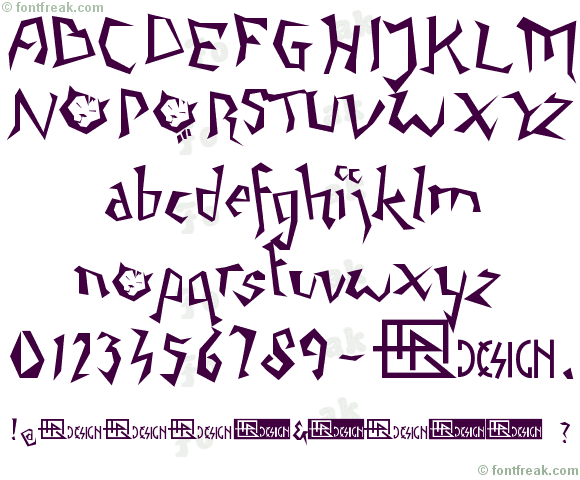
Napping Cat
The Napping Cat font by Roland Huse is a distinctive display typeface that captures the whimsical essence of feline leisure. With its playful, slightly irregular letterforms, this font falls into the decorative category, making it perfect for conveying a sense of fun and creativity. The strokes are uneven, giving the characters a hand-drawn appearance that is both inviting and charming. The overall weight is medium, with a moderate contrast that ensures legibility while maintaining a unique character.
This font's visual characteristics include quirky curves and sharp angles, which lend it an artistic flair. The spacing between letters is balanced, allowing for easy reading while enhancing its playful vibe. The Napping Cat font features decorative elements that evoke a sense of spontaneity, making it ideal for projects that require a lighthearted touch.
Best suited for creative applications, the Napping Cat font is perfect for children's book covers, playful restaurant menus, quirky event flyers, and social media graphics. Graphic designers will find it particularly useful for projects aimed at a younger audience or those that need to convey a sense of joy and creativity. Small business owners seeking to add a personal touch to their branding will also appreciate its unique appeal.
In a crowded marketplace of fonts, the Napping Cat font stands out with its whimsical charm and playful design. Its ability to evoke warmth and friendliness makes it a delightful choice for various creative endeavors. Whether you’re designing a fun invitation or a vibrant poster, the Napping Cat font free download offers a refreshing option that will surely capture attention and make a lasting impression.